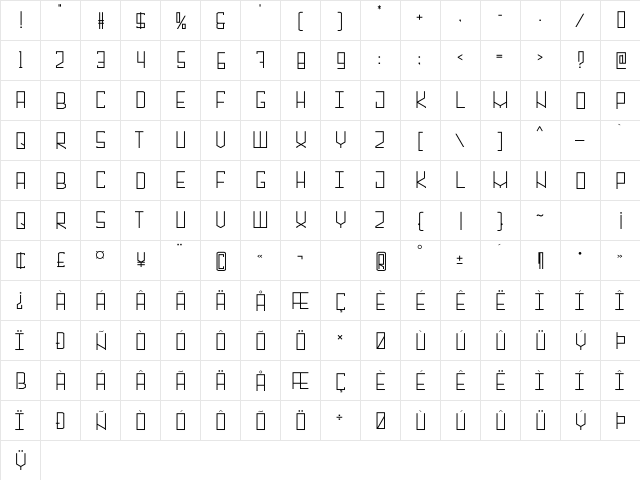
Alambre Thin
| Foundry | Don Marciano |
| Designer | Juan Miguel Castillo Romero |
Design Context for Alambre Typeface
Alambre takes a measured approach to typography — its balanced proportions and neutral character make it a reliable workhorse for both digital and print work. The delicate stroke weight brings airiness and refinement to layouts.